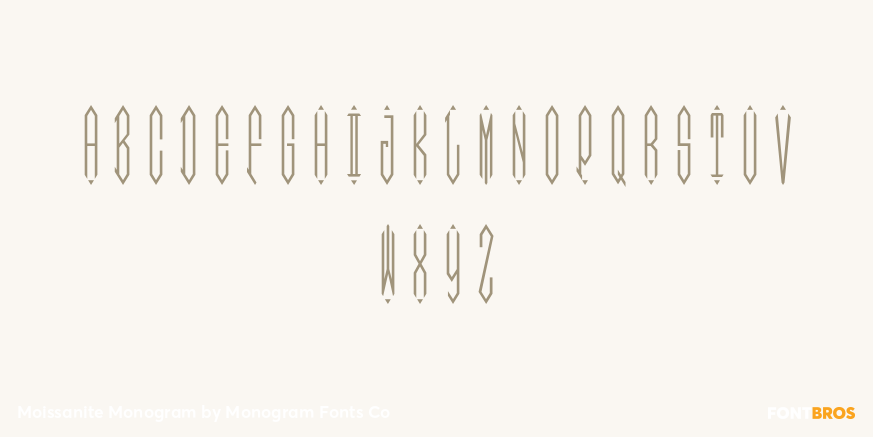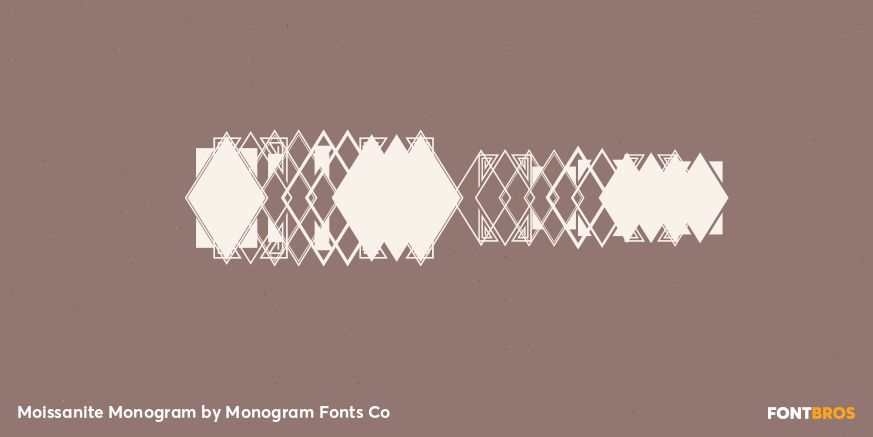
Moissanite Monogram
Font Family by Monogram Fonts Co
The inspiration source for Moissanite Monogram is the 1934 "Book of American Types" by American Type Founders. Found in that specimen book, in a section titled "Diamond Combination Monograms", this popular pattern of monogram was featured in Alfred Hitchcock's film, "North by Northwest". A classic diamond form, this monogram style is now digitally recreated for modern use in Moissanite Monogram, complete with two and three letter monograms, and a selection of frames to add a final classy touch!